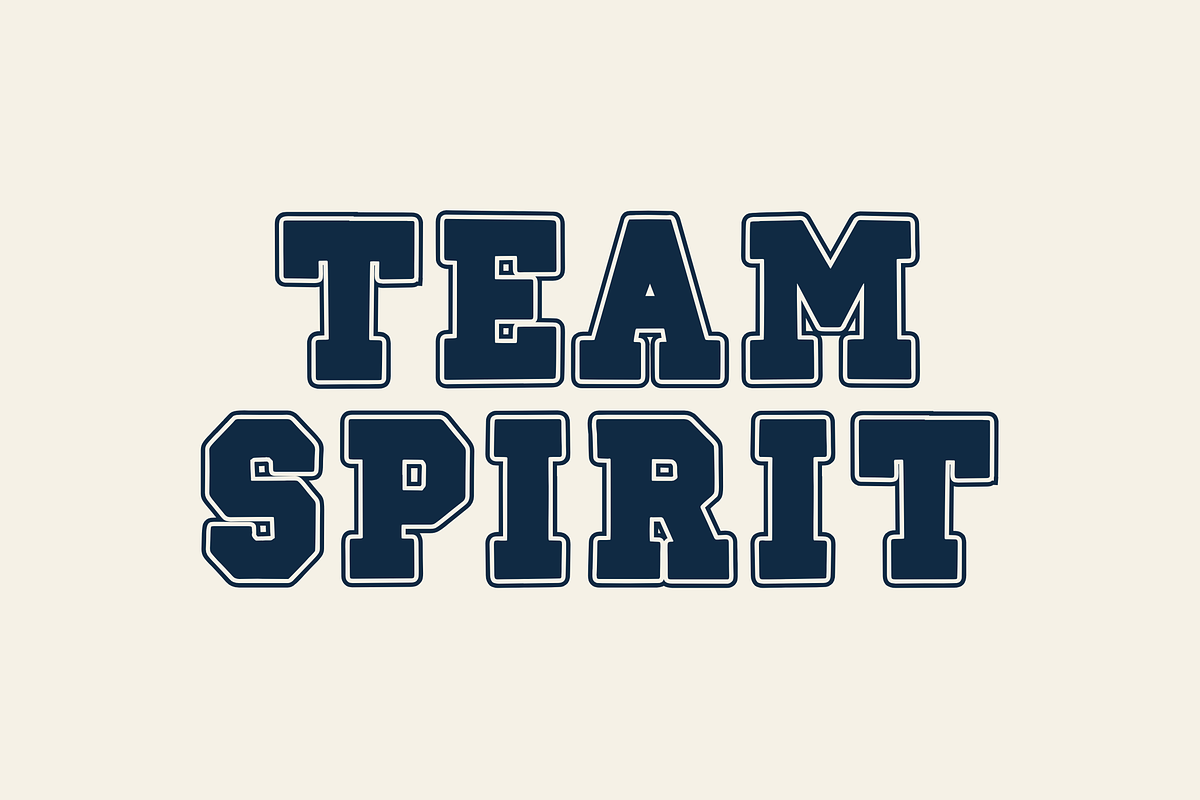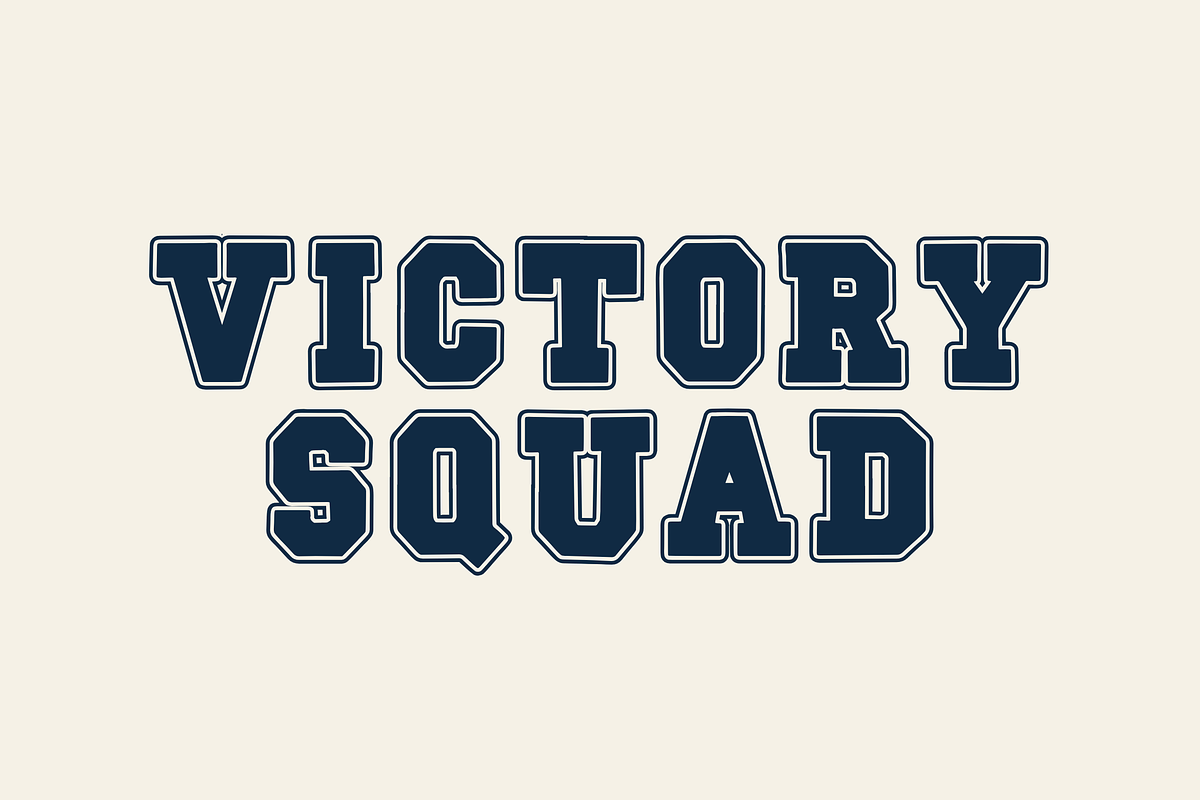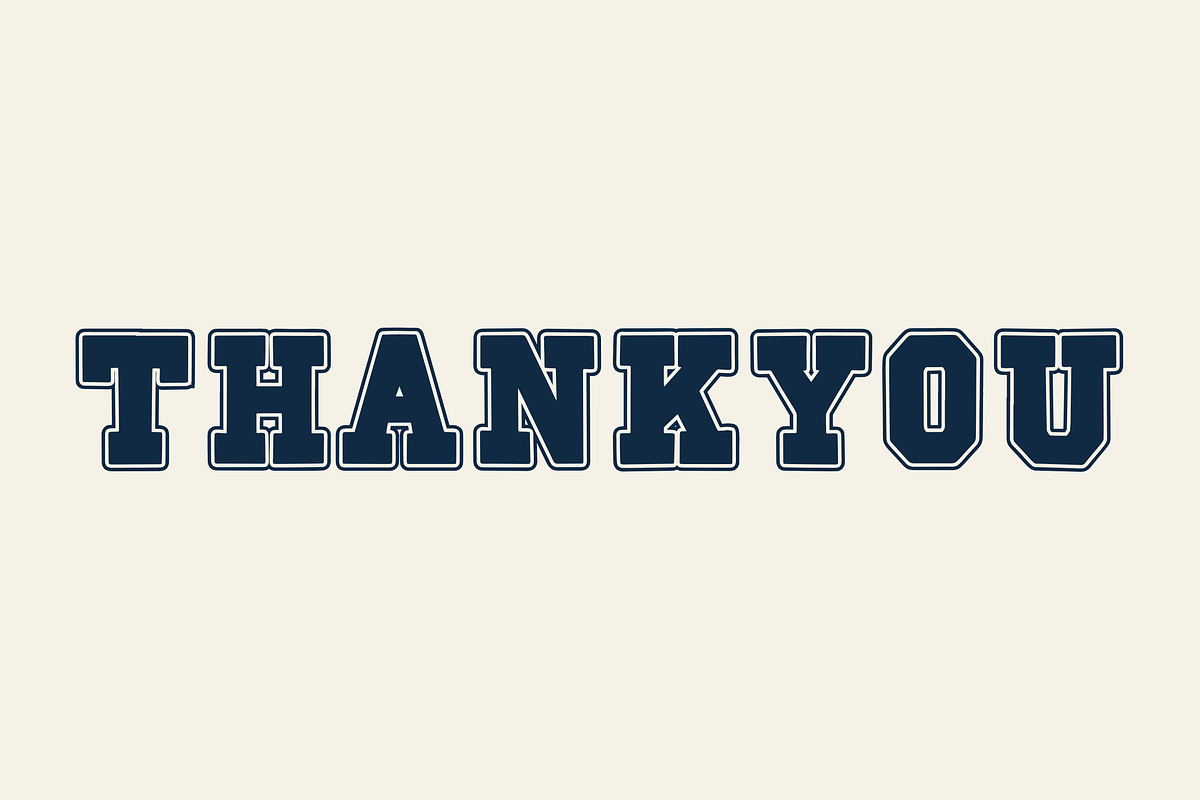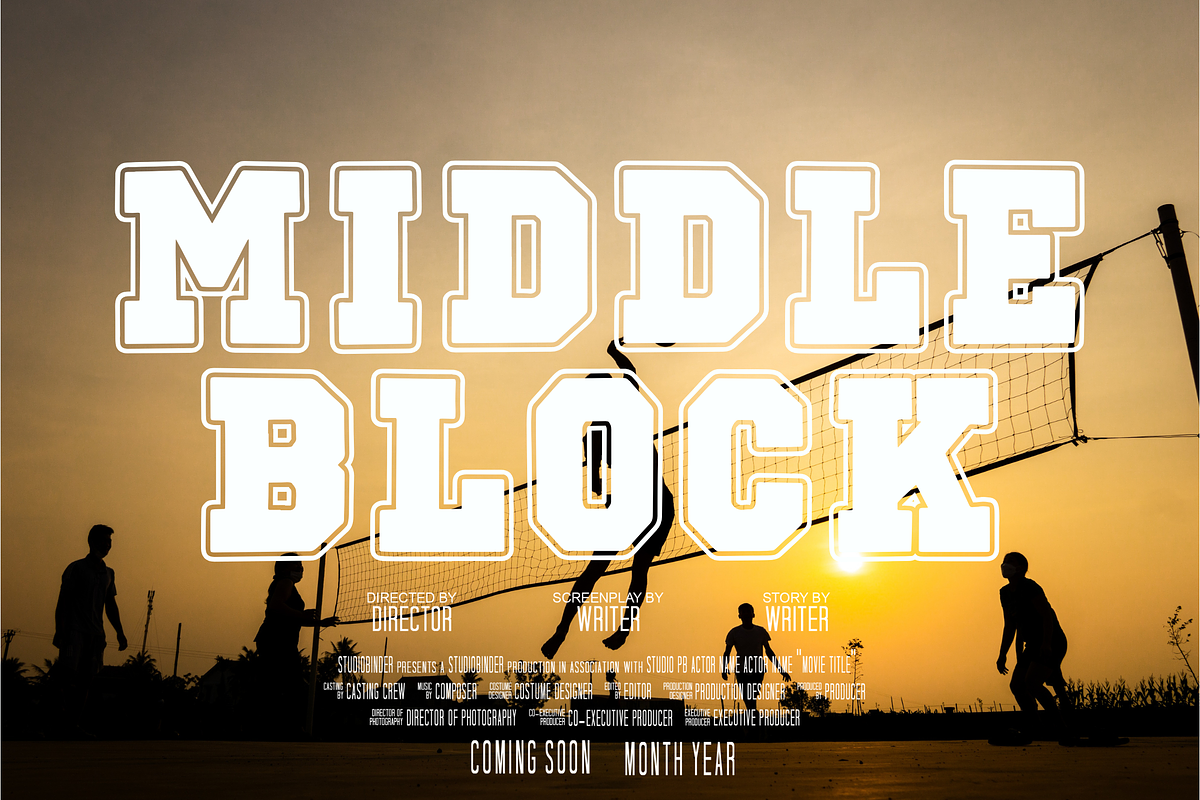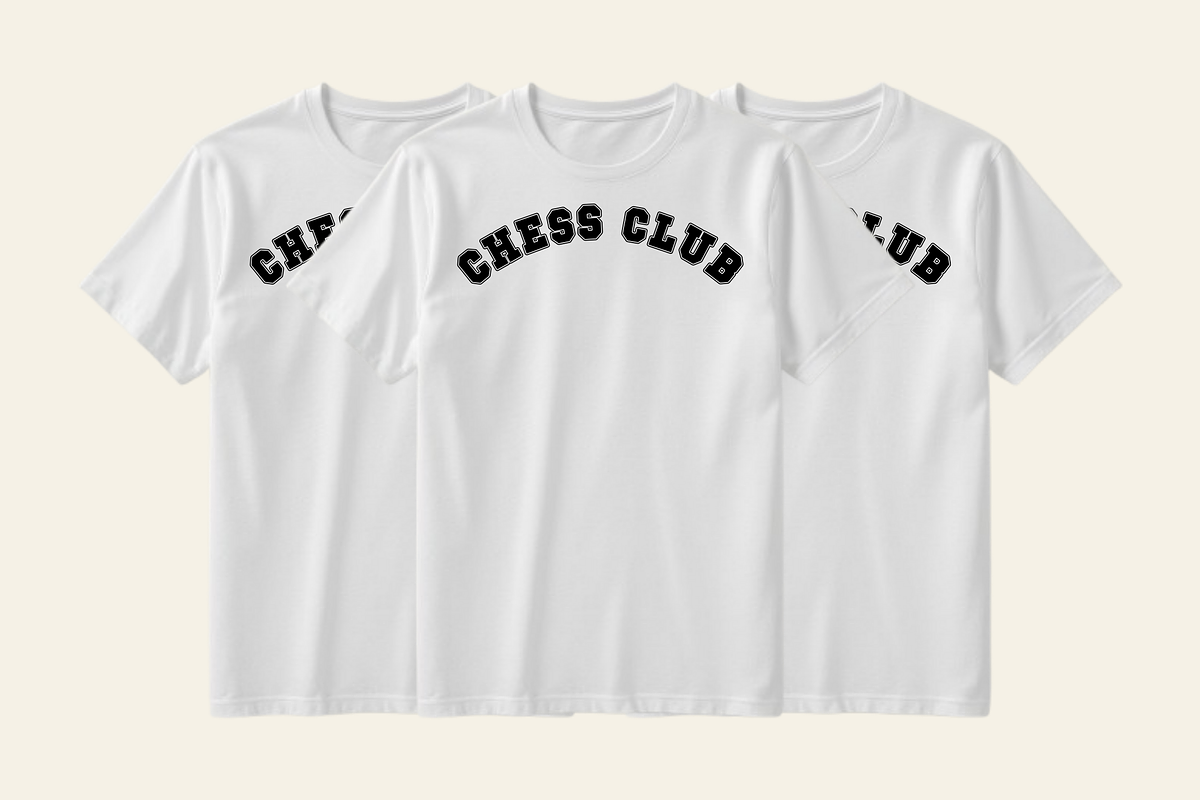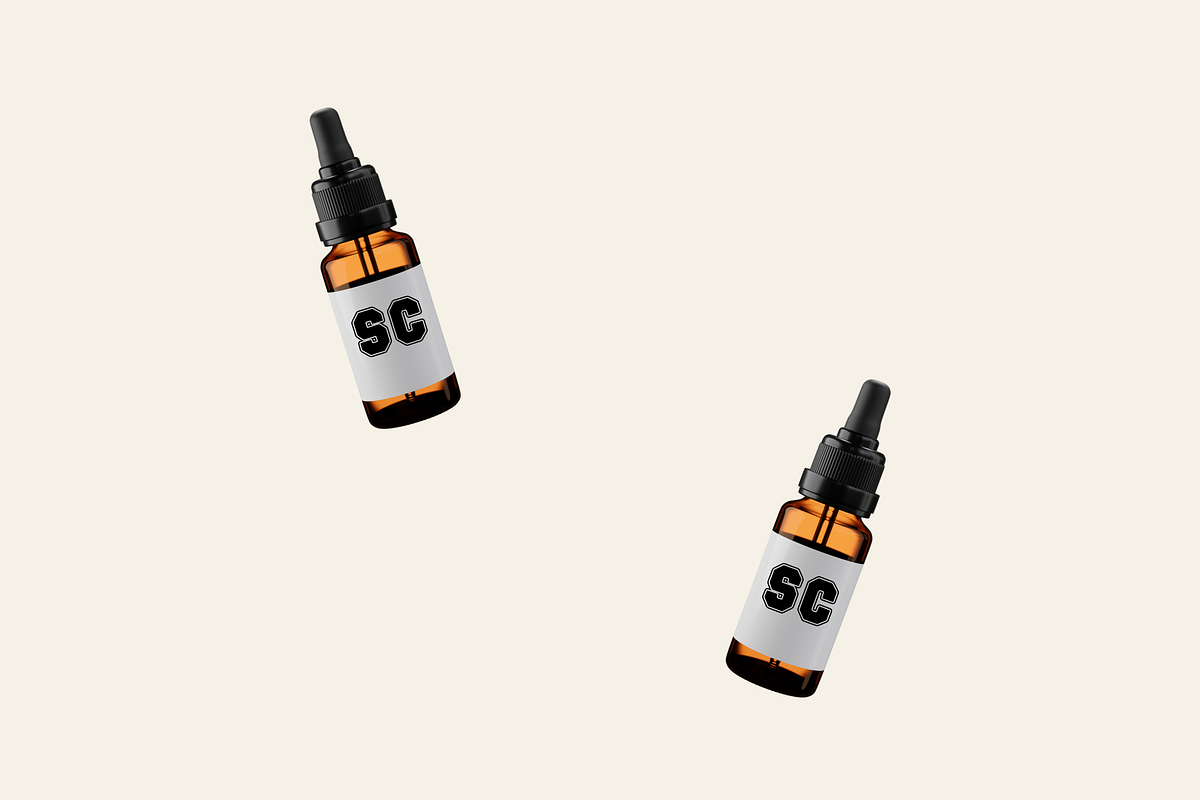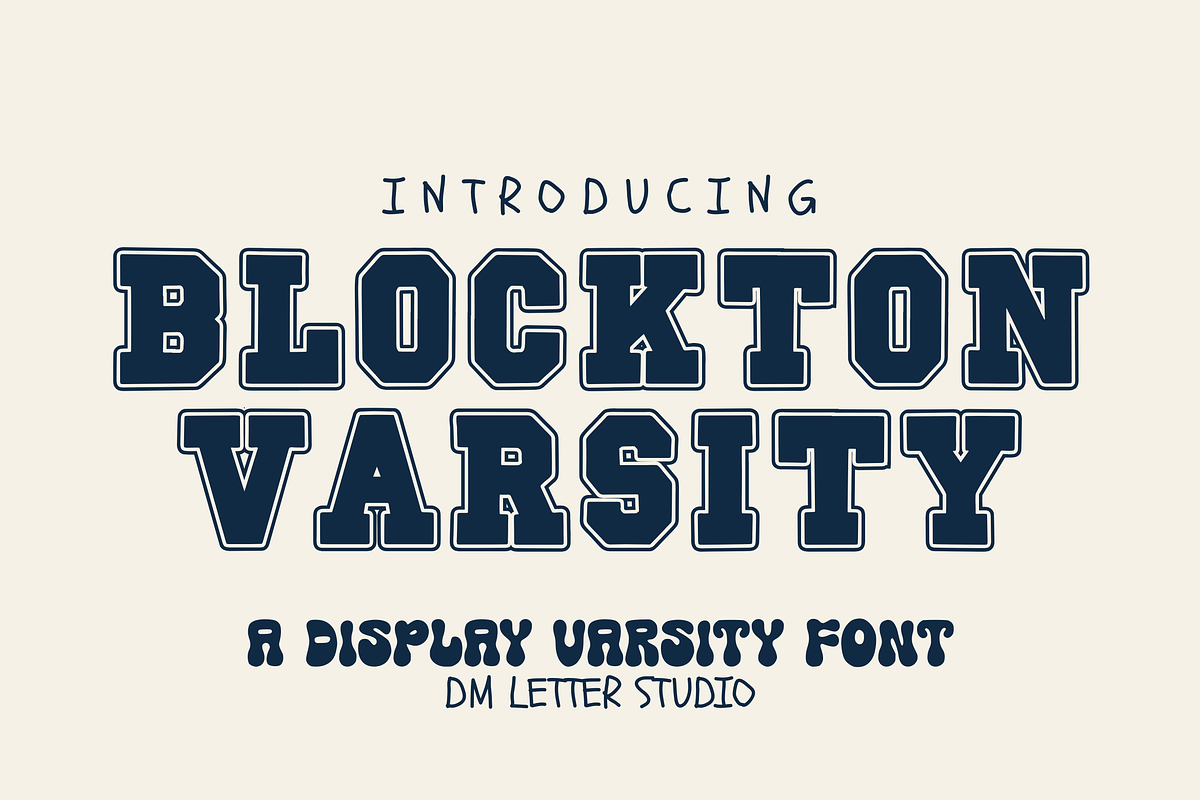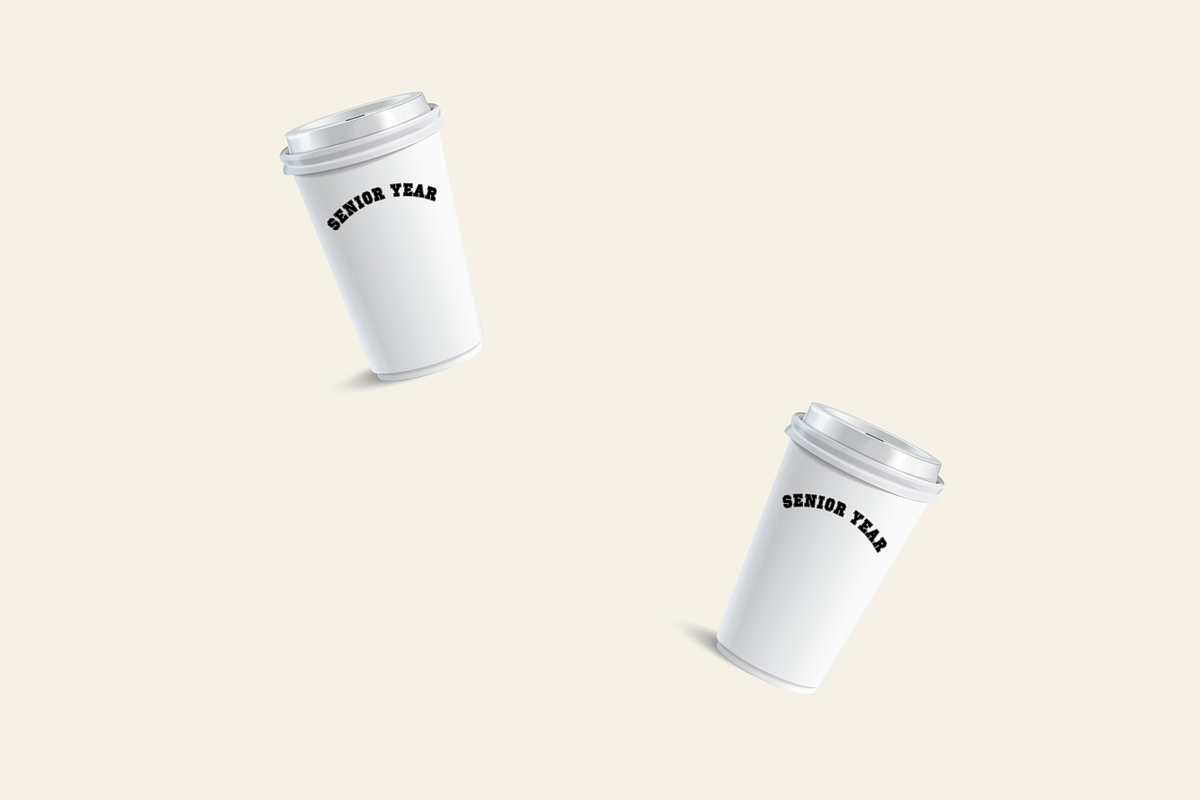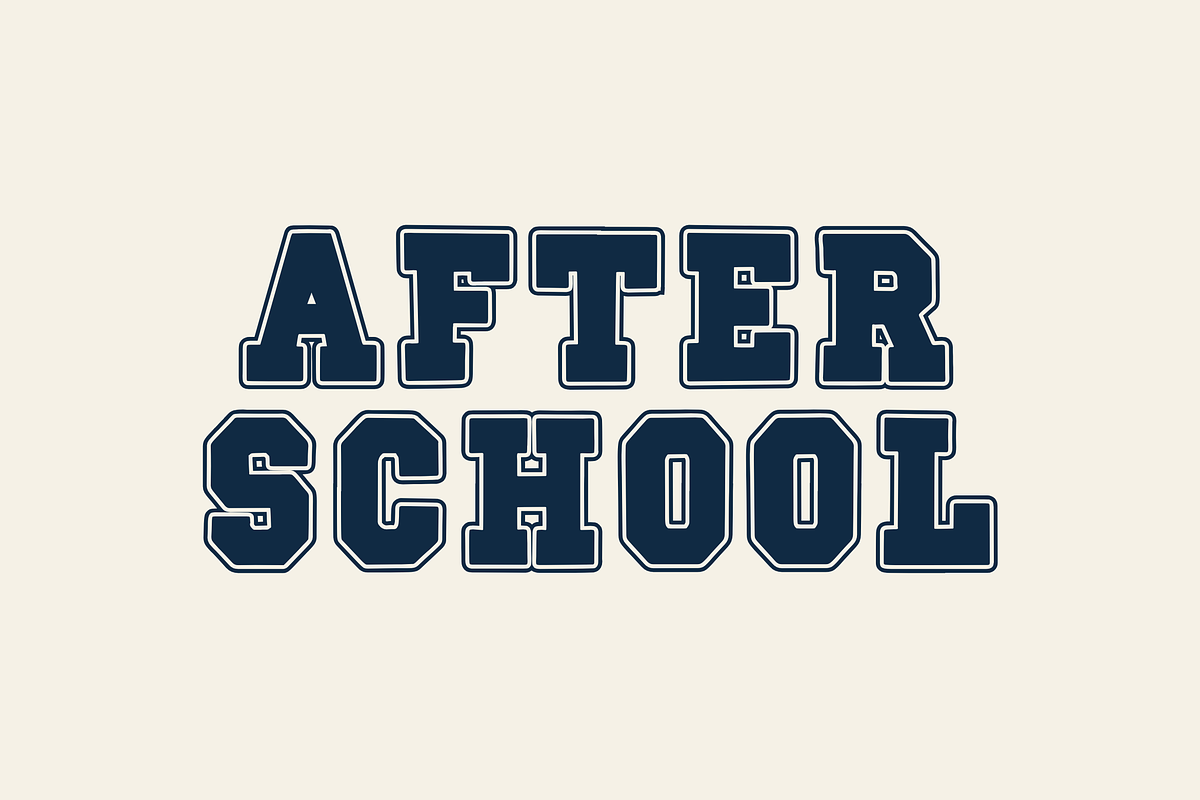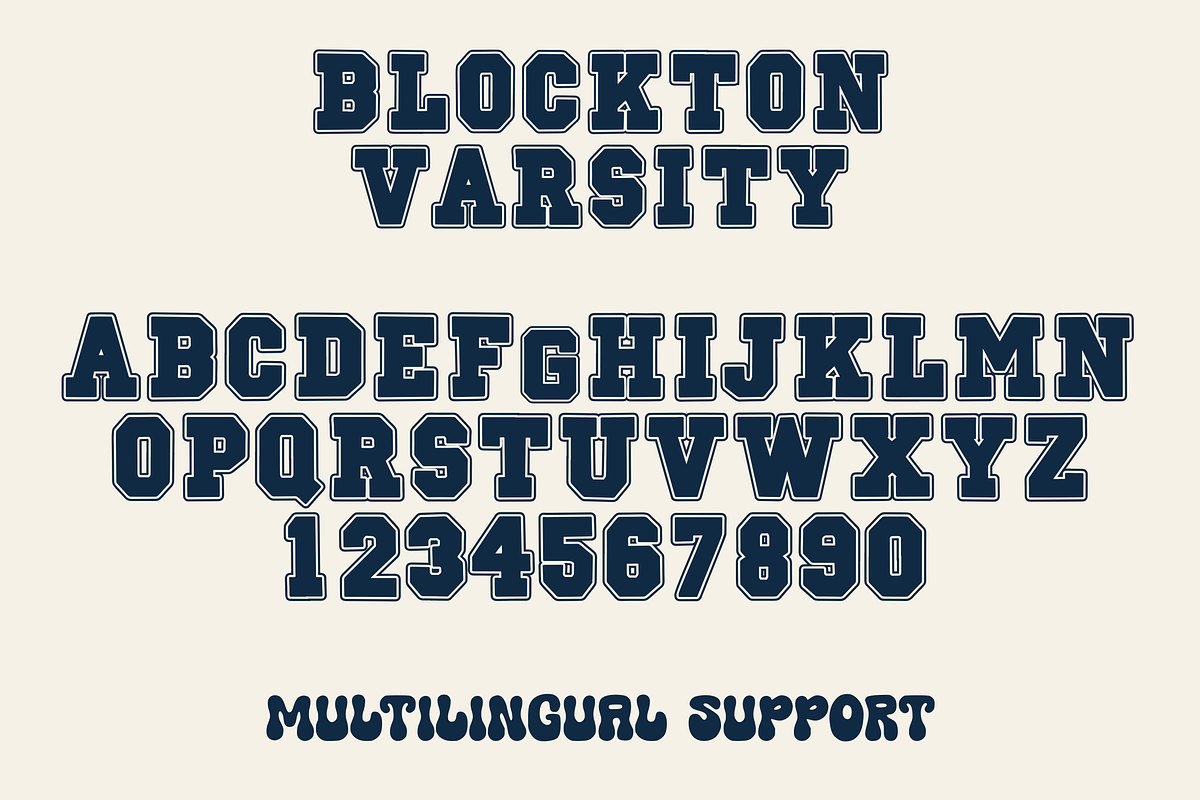
Blockton Varsity
Meet Blockton Varsity, the Bold Varsity Display Font
Blockton Varsity is a bold varsity-style display font built with strong block letterforms and a confident collegiate feel. It blends classic sports typography with a clean, modern edge, making it perfect for designs that need power and clarity. The letters are thick, balanced, and highly readable, so they work just as well on small prints as on large headlines. Use it for school branding, team apparel, posters, logos, packaging, signage, and sporty merchandise. As a result, your designs feel energetic, proud, and instantly recognizable.
Why Blockton Varsity Font sells
Fast layouts with the Blockton Varsity Font
Start with short, bold words like team names or slogans. After that, add supporting text in a clean sans or simple serif font. Because Blockton Varsity has strong geometry, it works especially well in arches, badges, and stacked layouts. In addition, it shines on jersey-style graphics, campus posters, and varsity logos. Finally, try classic color pairs like navy & white, black & gold, maroon & cream, or forest & ivory to lock in the varsity vibe.
Creative uses and quick wins
- Varsity logos, school branding, and team marks
- Apparel designs for jerseys, hoodies, and hats
- Posters, flyers, and campus event graphics
- Stickers, signage, and sporty merchandise
- Uppercase, lowercase, numbers, punctuation
Design tips for Blockton Varsity Font
Keep text bold and centered to emphasize the varsity style. Also, leave enough spacing so letters stay clear in print. For a classic sports look, add outlines, stripes, or subtle textures. Finally, export at 300 DPI for print and at 2× size for web so edges stay crisp.